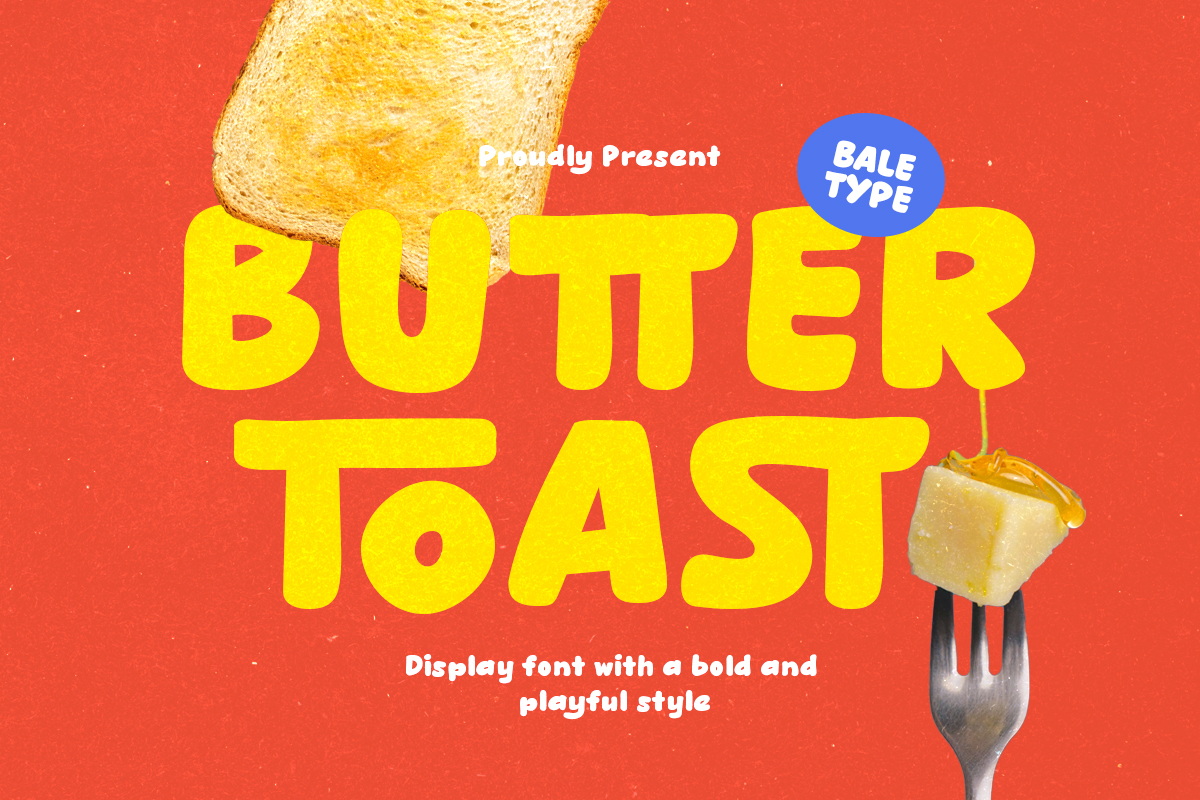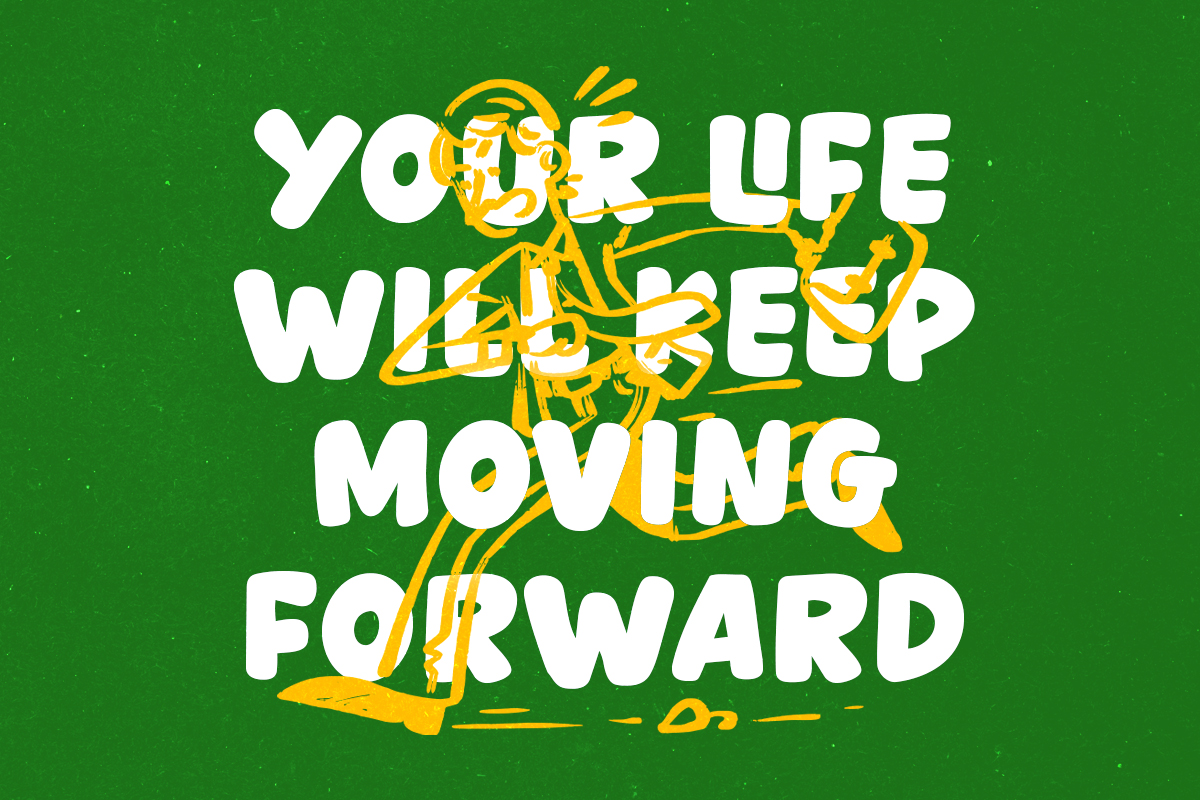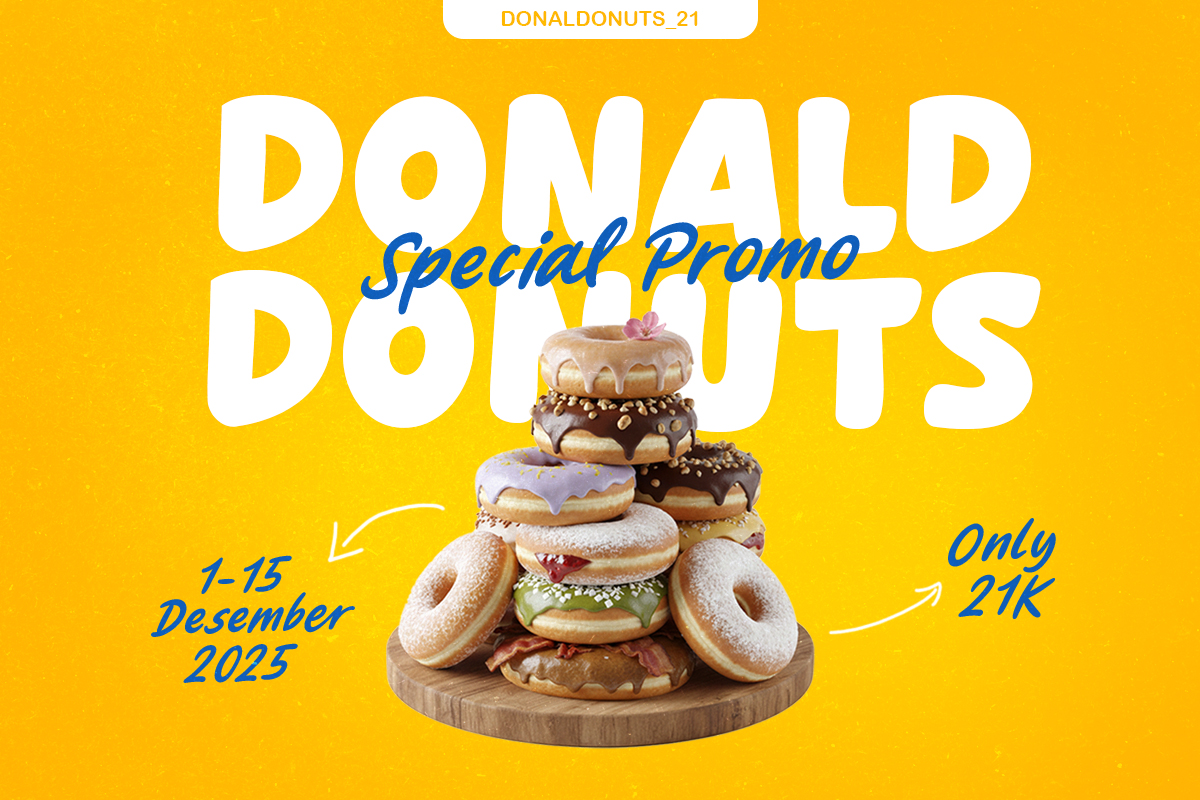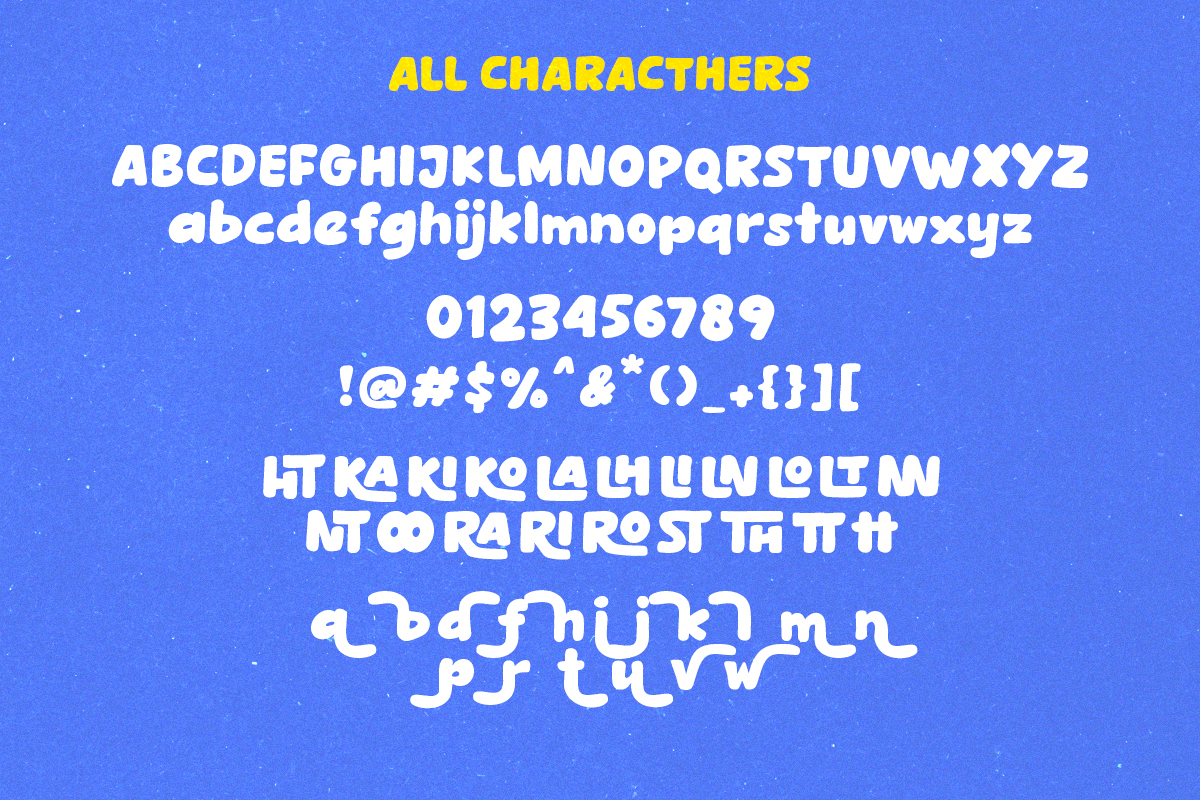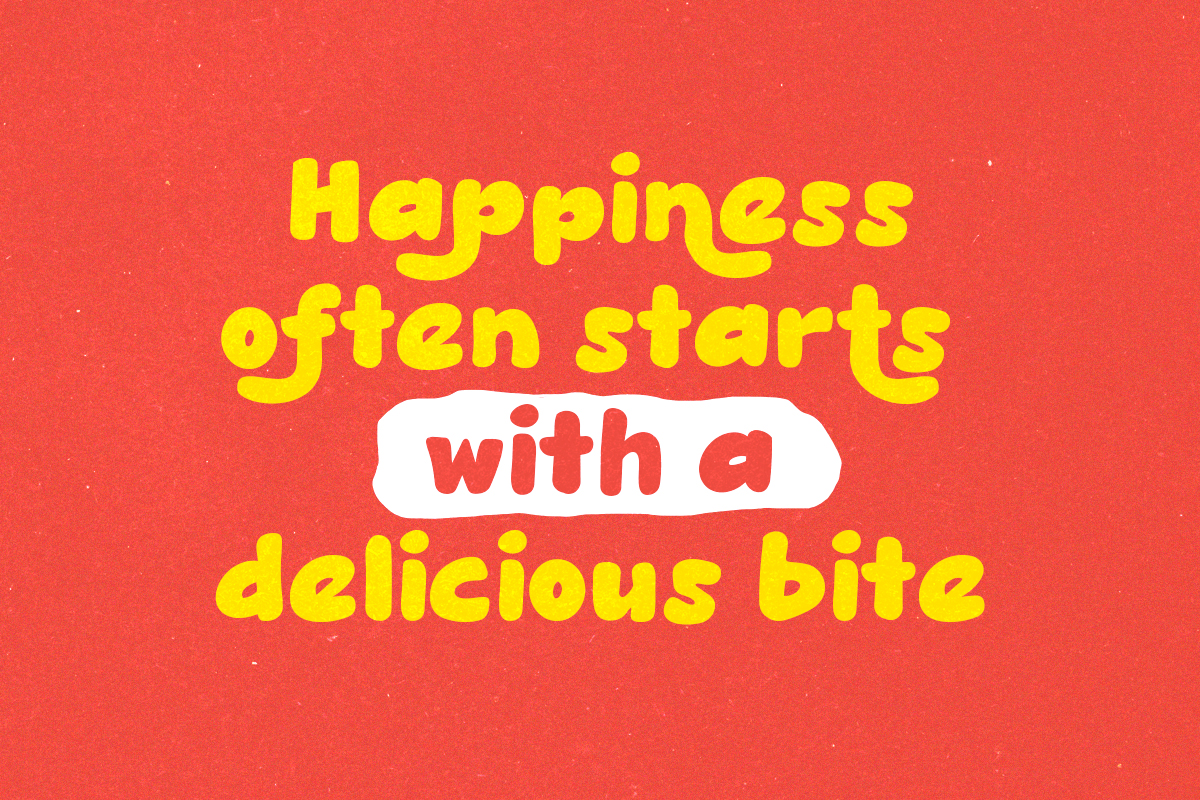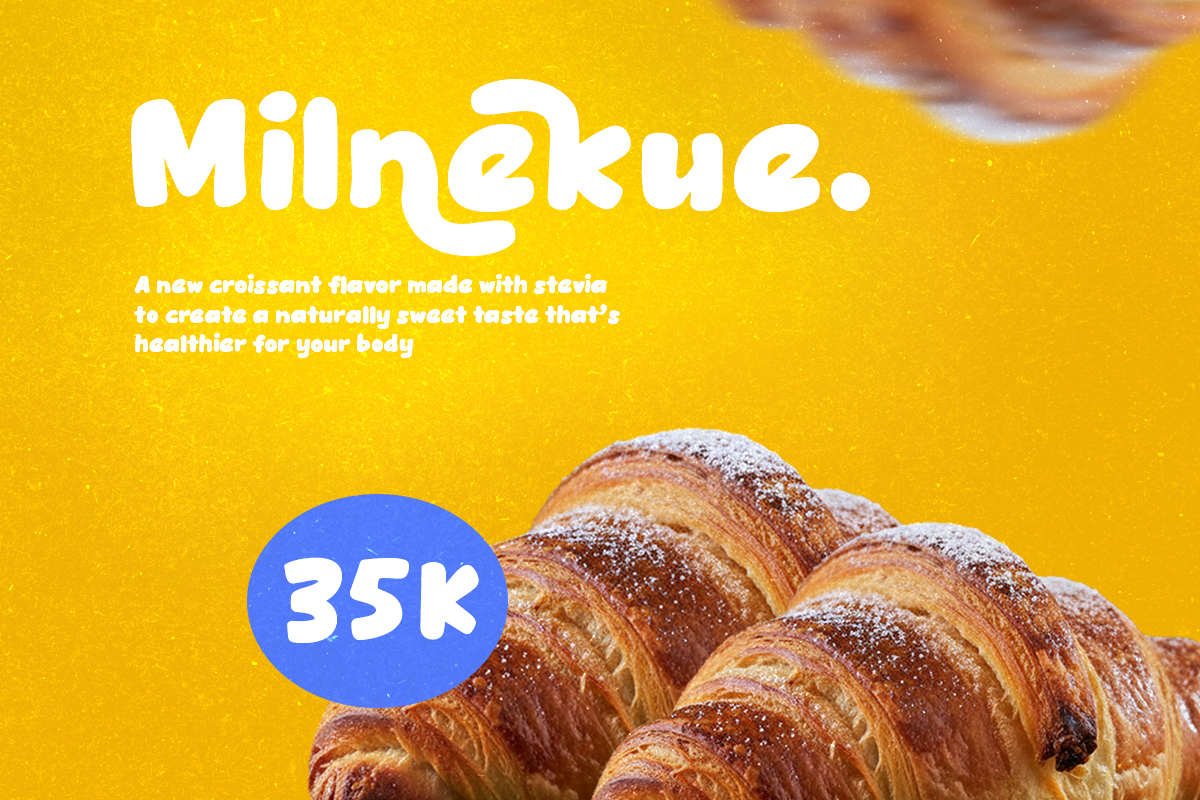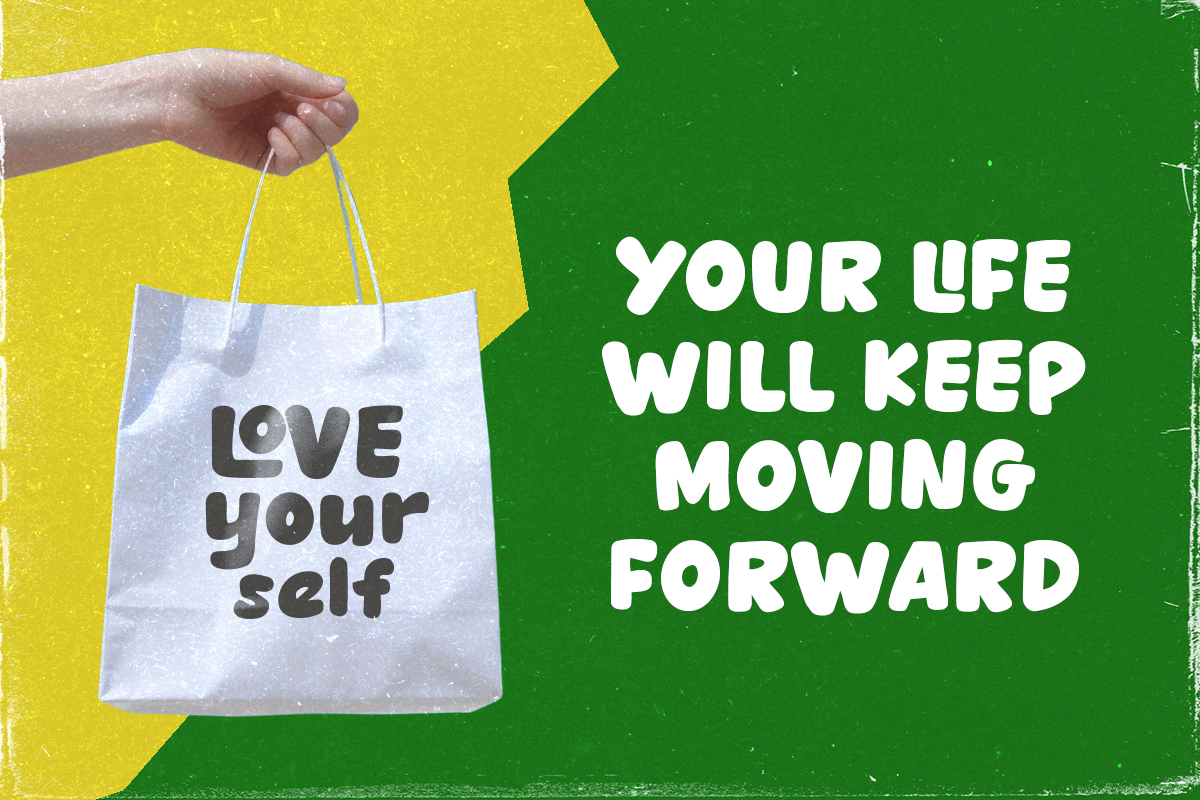
Butter Toast - Bold Display Font
Butter Toast is a bold hand-lettered font with delicious and soft vibes. Comes with ligatures and alternates, this font can make your project looks more stand out. You can use this font for branding, logotype, quotes, or poster. This font also support multi language!